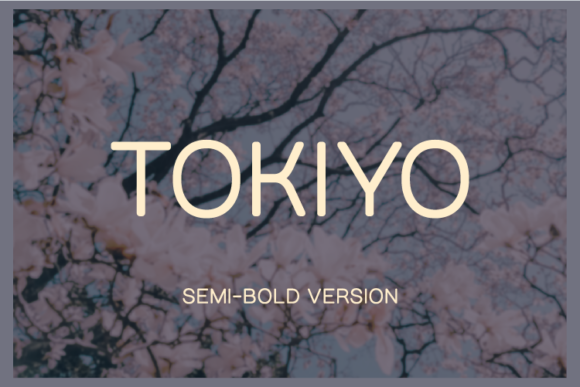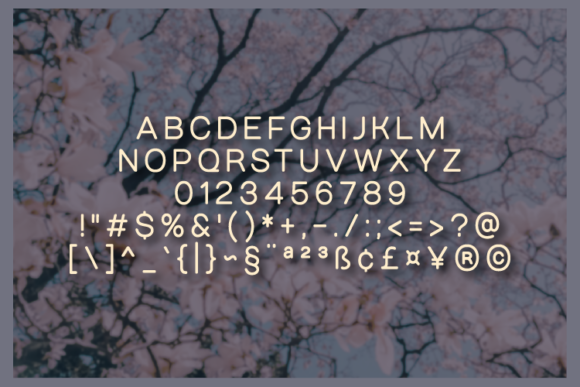
HomeSans Serif FontsTokiyo Semi-Bold Font Sans Serif Fonts Tokiyo Semi-Bold Font FacebookTwitterPinterestWhatsApp Tokiyo Semi-Bold Font 1 of 2 About Tokiyo Semi-Bold Font Tokiyo is a sans serif font with Japanese design elements. It smoothly blends beauty and elegance into one outstanding typeface. DOWNLOAD NOW 127 0 People also explored Gaseda Font Usually Font Barkeliy Font Simaro Font Ocean Six Font Sightwell Signature Font Kingbake Font Hijrnotes Font Blink Font Shimory Font Winkdeep Duo Font Bestie Signature Font TagsTokiyo Semi-Bold Font Previous articleTokiyo Bold FontNext articleTokiyo Medium Font LEAVE A REPLY Cancel reply Comment: Please enter your comment! Name:* Please enter your name here Email:* You have entered an incorrect email address! Please enter your email address here Website: Save my name, email, and website in this browser for the next time I comment. Unlock Endless Creativity with the FREE September Clipart Huge Bundle (Valued at $700!) Personal Use Free Bigstone Personal Use Free Read more The Fourth Avenue Personal Use Free Read more Manhattan Personal Use Free Read more BD Geminis Personal Use Free Read more BLOG Free Fonts Risk: Why Free Fonts Can Be Dangerous for Designers Free Fonts Risk: Why Free Fonts Can Be Dangerous for Designers Using free fonts is a common practice in web and graphic design. However, the... Where to Buy American Fonts Online in 2024 The 10 Best Handwriting Fonts to Add Personality to Your Designs Transform Your Website: Elevate Your Typography with 7 Best Web Font Generators